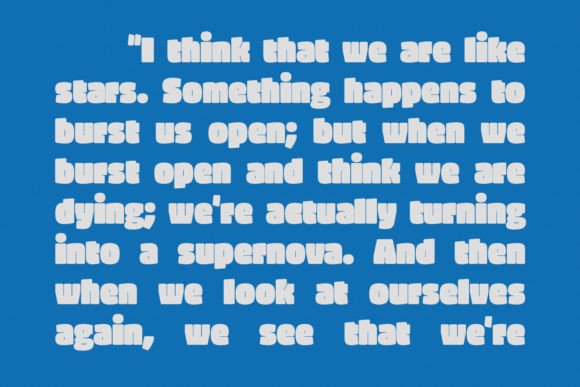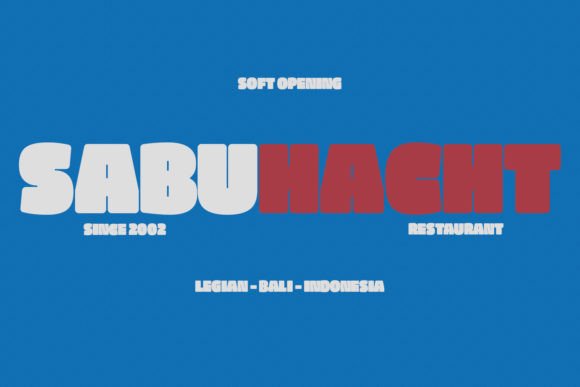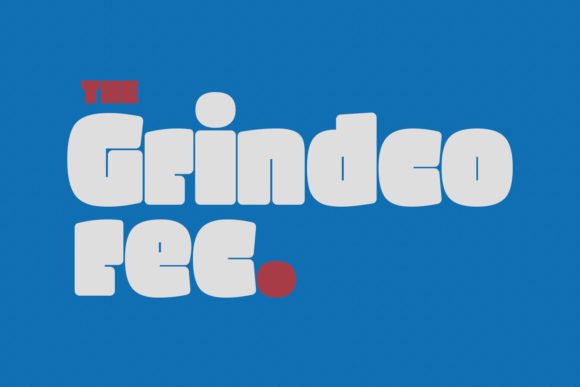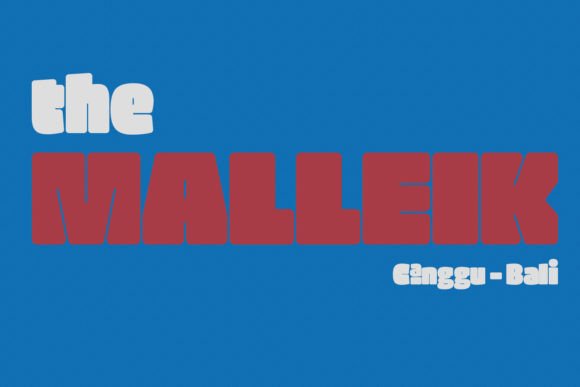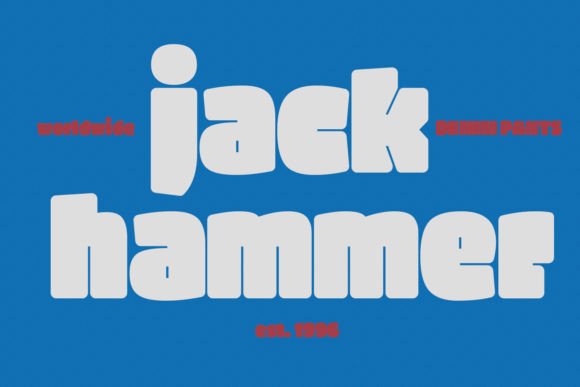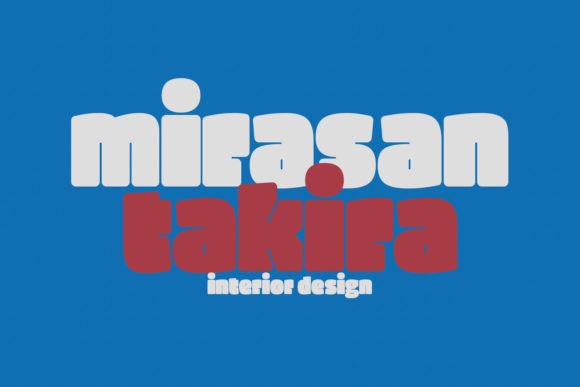
Introduction to Malleik Font
Have you ever stumbled upon a font that makes your design project shine like never before? For many designers, that moment comes when they discover the perfect font to elevate their creative work. I’m excited to share with you a font that has the potential to become your go-to design resource – the Malleik Font.
This versatile and high-quality font is perfect for a wide range of creative projects, from logo designs to social media posts, movie titles, and book covers. With its unique combination of heavy strokes, fun characters, and ligatures, the Malleik Font is sure to add a touch of personality to your designs.
What sets the Malleik Font apart is its PUA (Private Use Area) encoding, which allows designers to access all the amazing glyphs and ligatures with ease. This means you can unleash your creativity and produce stunning work without any limitations. Whether you’re working on a short text or a long-form project, the Malleik Font is an excellent choice for your secondary text font, paired with a script or serif font.
Key Features of Malleik Font
- Features a modern and sleek design, making it perfect for use in logos, typography, and other creative applications.
Honest Review: Malleik Font
I recently stumbled upon the Malleik Font and I must say, it’s been a game-changer for my creative projects. This font is a great addition to any design resource, offering a high quality and versatile aesthetic.
- ✨ Elegant and modern design that’s perfect for branding and marketing materials
- ✨ Highly legible and clear, even at smaller font sizes
- ⚠️ Limited language support, which may not be ideal for global design projects
- ⚠️ No bold or italic variations, which may limit its use in certain creative applications
How to Use Malleik Font
Tips for Getting the Most Out of Malleik Font
To get the most out of Malleik Font, experiment with different font sizes, colors, and styles to find the perfect combination for your design. You can also pair it with other design elements, such as images and graphics, to create a cohesive and visually appealing design.
Common Use Cases for Malleik Font
The Malleik Font is ideal for a variety of use cases, including: creating social media graphics, designing presentations and reports, and developing branding materials. Its unique style and high-quality design make it a versatile and valuable resource for designers and artists.